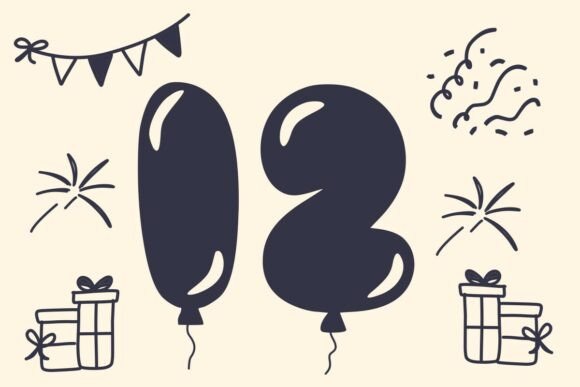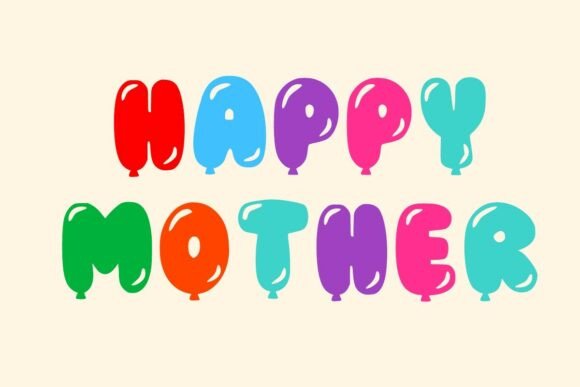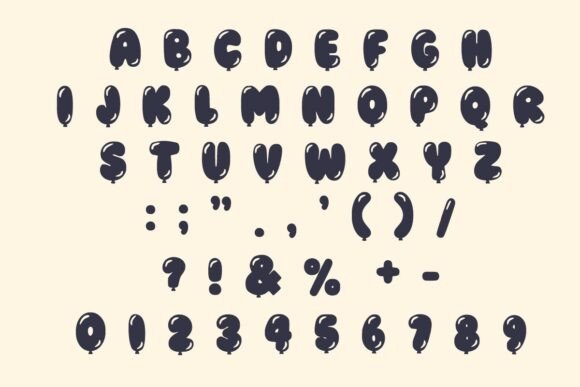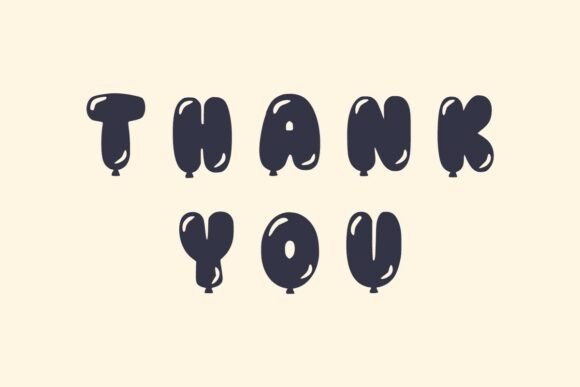
Introducing Color Party Font: The Ultimate Celebration Companion
Get ready to add a splash of fun and excitement to your designs with Color Party font, a lively and cheerful balloon-style typeface that’s sure to bring instant joy to any project. This playful font is designed to mimic the soft, rounded look of inflated balloons, giving your text a hand-drawn and energetic feel that’s perfect for creating festive and engaging visuals.
The Perfect Font for Celebrations
Color Party font is the ideal choice for designers and crafters looking to add a touch of whimsy and excitement to their work. Whether you’re creating birthday party invitations, baby shower announcements, or festive social media graphics, this font is sure to make your messages stand out. Its bubbly and friendly aesthetic is key to creating a fun and celebratory atmosphere that’s sure to delight your audience.
Design Possibilities are Endless
The versatility of Color Party font makes it perfect for a wide range of design projects. Here are some ideas to get you started:
- Children’s books: Add a playful touch to your storybook designs with Color Party font’s fun and energetic vibe.
- Birthday party invitations: Create eye-catching invites that set the tone for a fun and exciting celebration.
- Learning materials: Make learning fun with Color Party font’s playful and engaging style.
- T-shirt prints: Add a pop of personality to your apparel designs with this fun and cheerful font.
- Stickers: Create fun and colorful stickers that are perfect for parties, gifts, or decorations.
- Classroom décor: Add a touch of whimsy to your classroom with Color Party font’s fun and playful style.
Tips for Styling with Color Party Font
To make the most of Color Party font, here are some styling tips to keep in mind:
- Pair with confetti icons: Add an extra touch of celebration to your designs with confetti icons that match the fun and playful vibe of Color Party font.
- Use bright palettes: Bright and bold colors are a perfect match for Color Party font’s cheerful style. Try pairing it with vibrant color palettes to make your designs truly pop.
- Mix with fun illustrations: Add an extra layer of whimsy to your designs by pairing Color Party font with fun and playful illustrations.
Why Color Party Font Stands Out
Color Party font’s unique and playful style makes it stand out from other fonts. Here are some reasons why:
- Soft and rounded letters: The font’s soft and rounded letters mimic the look of inflated balloons, giving your text a hand-drawn and energetic feel.
- Perfect for big sizes: Color Party font stands out beautifully in big sizes, making it perfect for headlines, titles, and other display text.
- Pairs perfectly with vibrant colors: The font’s playful style pairs perfectly with vibrant color palettes, making your designs truly pop.
Get Ready to Party with Color Party Font
With Color Party font, you can add a touch of fun and excitement to your designs. Whether you’re a designer, crafter, or DIY enthusiast, this font is sure to become your go-to for creating festive and engaging visuals. So why wait? Get the celebration started with Color Party font and make your messages truly pop!